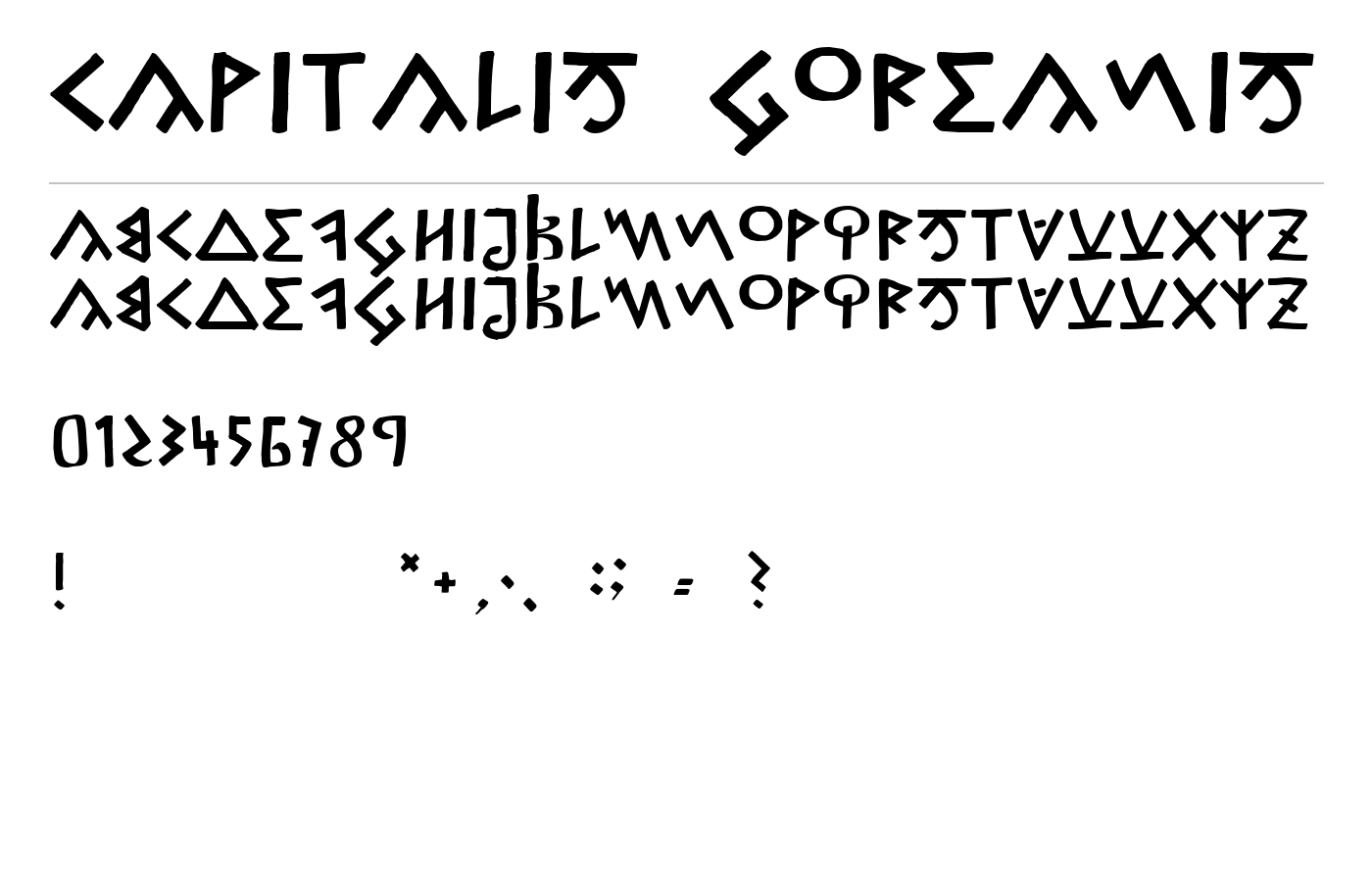
Capitalis Goreanis is a unique, all-caps display font with a hand-drawn, geometric style inspired by ancient scripts. Its sharp angles and irregular strokes give it a mystical, archaic feel that works well for branding, posters, or creative projects needing a distinctive and mysterious touch. This font is ideal for designs that want to convey a sense of history, fantasy, or cultural depth in a bold, eye-catching way.
Capitalis Goreanis Font
About Capitalis Goreanis Font